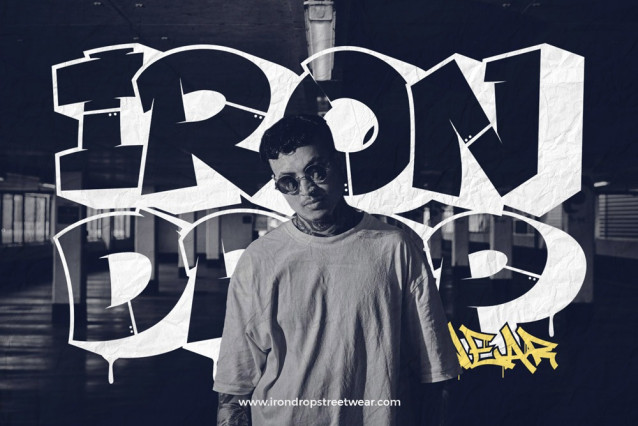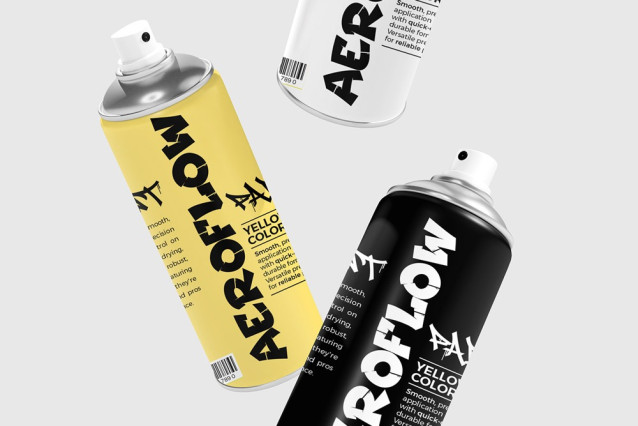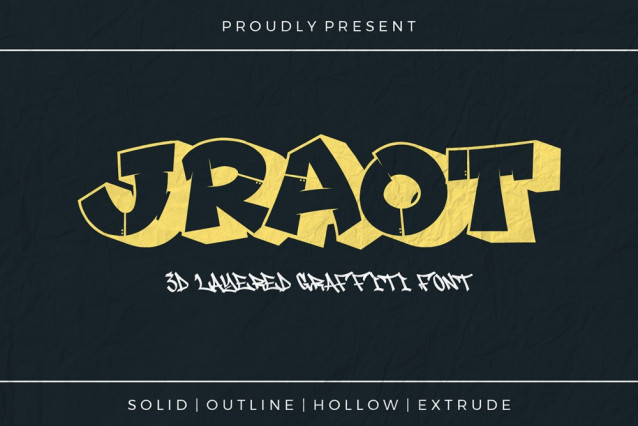
Jraot Display Font
Jraot Display Font is a bold and expressive 3D decorative graffiti font designed to inject powerful street culture energy into your design arsenal. With both uppercase and lowercase characters, Jraot offers versatility while staying true to its graffiti roots. This font isn’t just about bold letters—it’s about dimensional storytelling. Featuring four stylistic variations, Jraot gives designers a complete typographic system to create depth, layering, and movement.
Whether you’re crafting designs for urban clothing brands, music events, extreme sports, or digital art, Jraot delivers uncompromising personality and visual power.